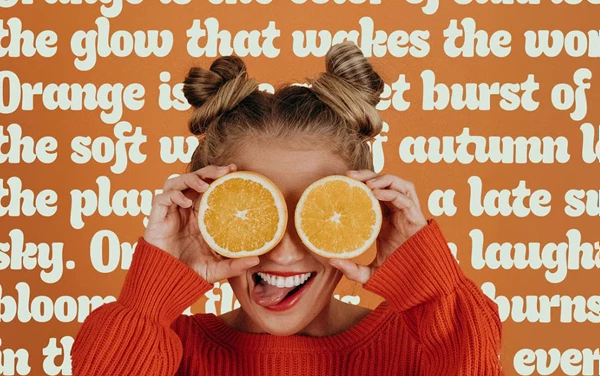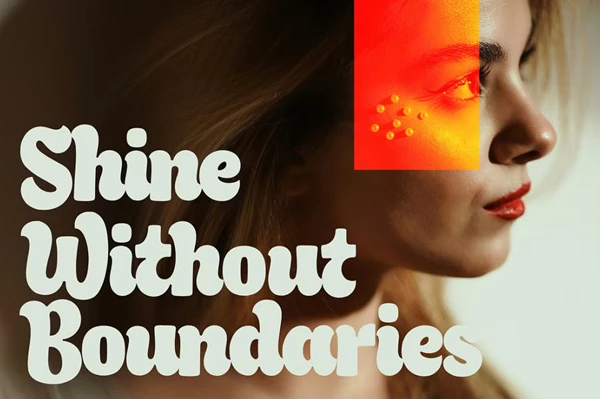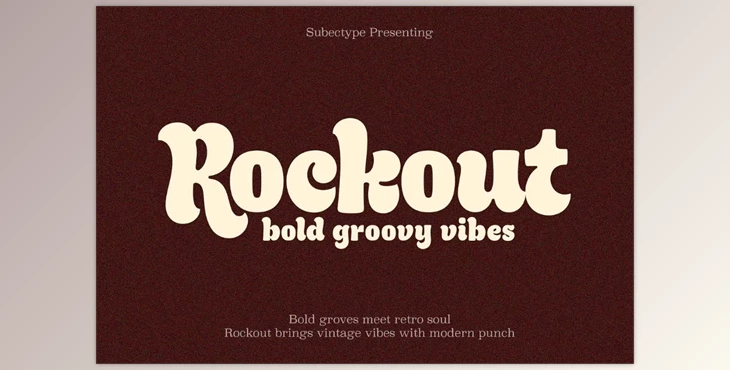
Rockout - Modern Groovy Font:
The Rockout font is a modern retro typeface that's perfect for eye-catching display purposes. These bold, linear, and energetic strokes add a sense of nostalgia yet a playful modern vibe to any project. The groovy curves make it look reminiscent of old school yet new age at the same time, making it suitable for many endeavours. Ideal for posters, logos, packaging, social media content, and more, this font provides a sensibility that balances vintage vibes with a modern sensibility across industries. It works with just about any design aesthetic, which makes it a great go-to font.